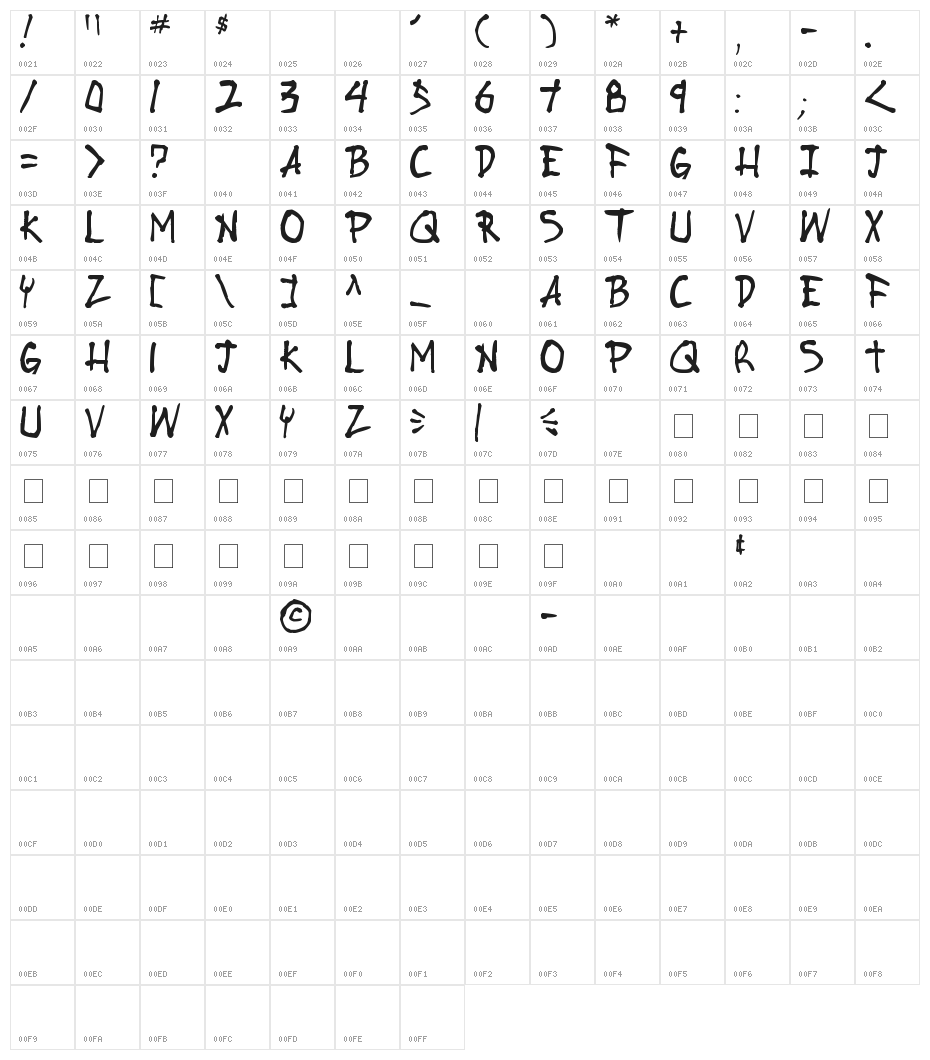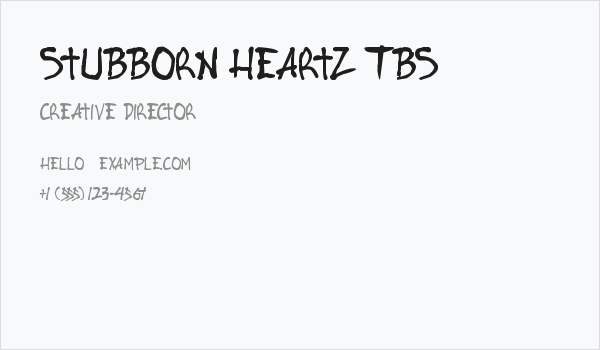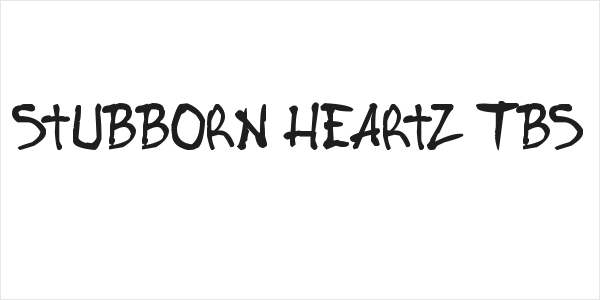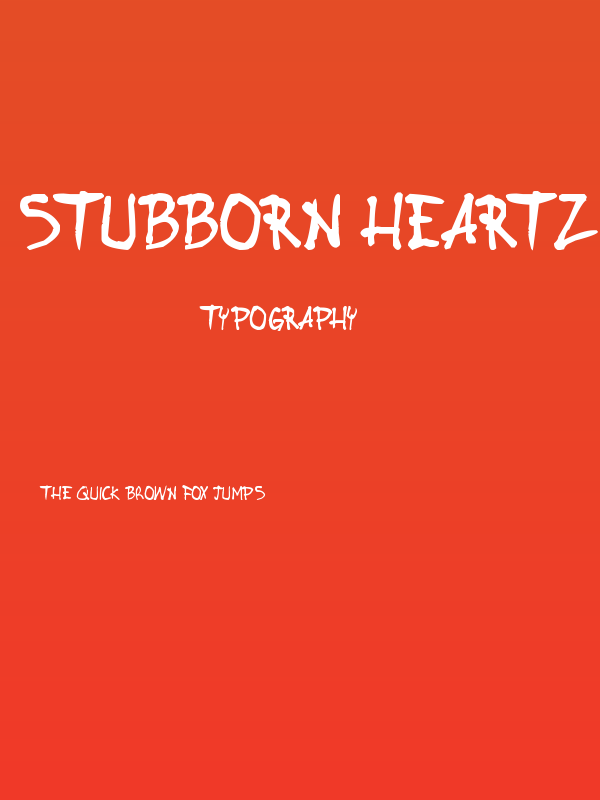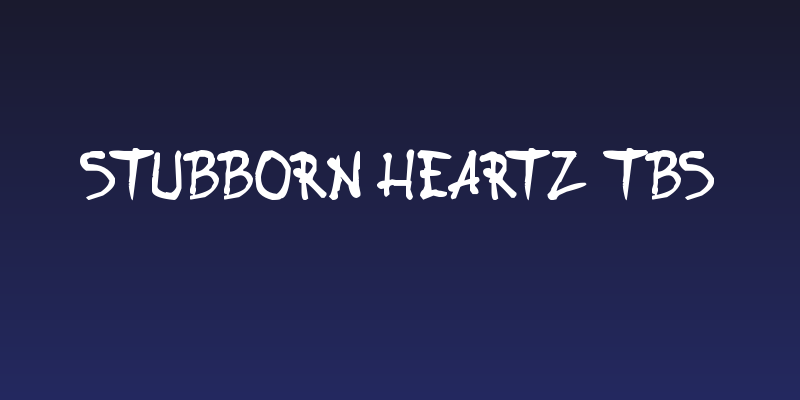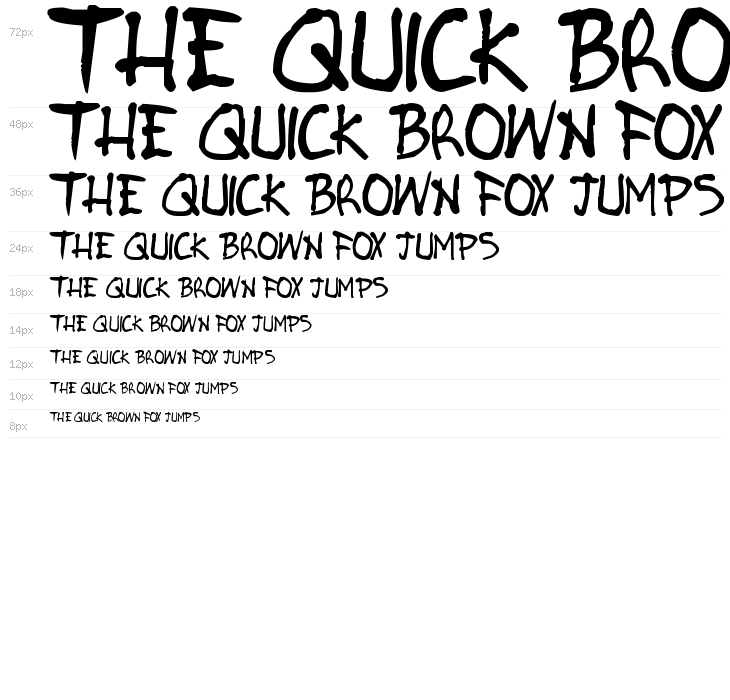
Stubborn Heartz TBS Font
Stubborn Heartz TBS Description
This font features a bold and expressive handwritten style, characterized by its irregular and dynamic strokes. The letters have a playful and energetic appearance, with varying thickness that adds a sense of movement and personality. The uppercase and lowercase letters maintain a consistent style, while the numerals and special characters complement the overall aesthetic. The font's unique charm makes it suitable for creative and informal projects, where a touch of individuality is desired.
| Proposed Projects | Ideal for greeting cards, posters, artistic branding, and social media graphics. |